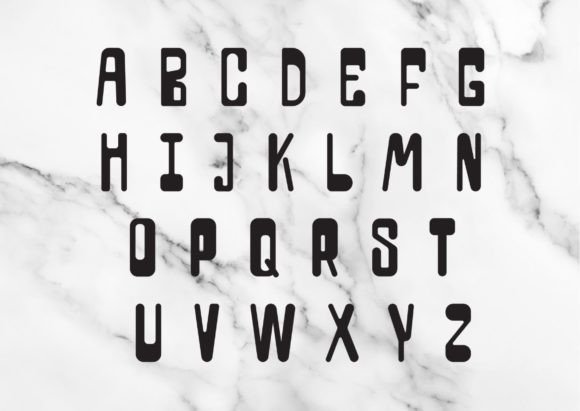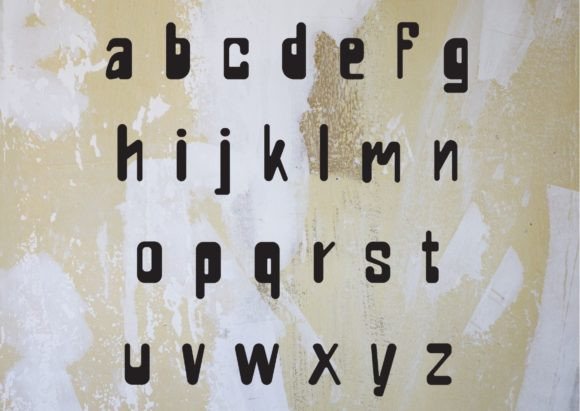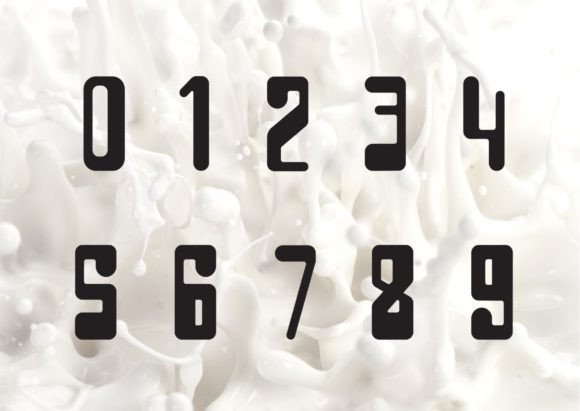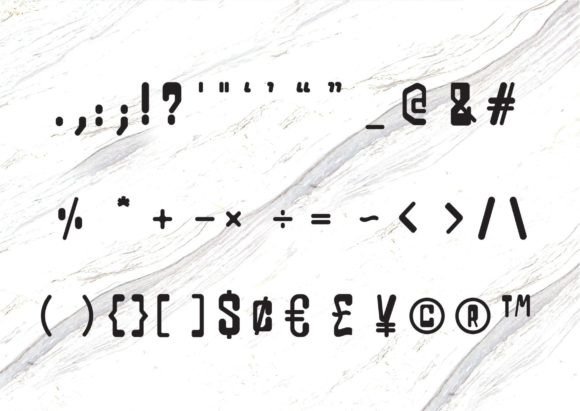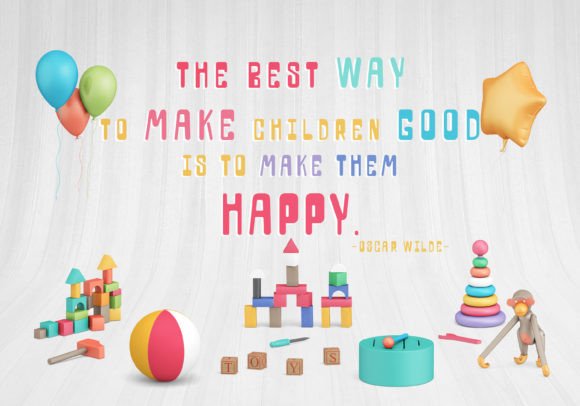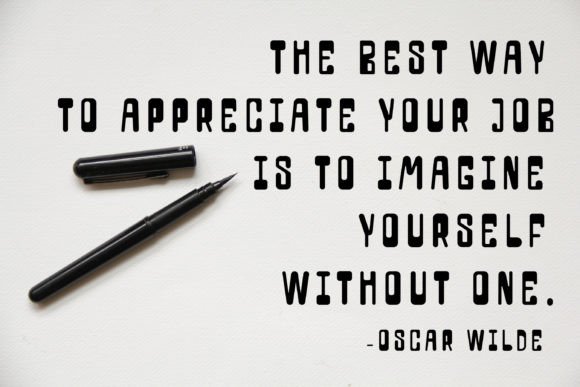
Unleash Your Creativity with Chimpli Font
Have you ever been stuck in a creative rut, staring at a blank page with no inspiration in sight? It’s a familiar feeling for many designers, but what if you had a secret weapon to break the cycle? Introducing Chimpli Font, a fun and playful display font that’s sure to spark some creativity.
This charming font is perfect for adding a touch of whimsy to your designs, from social media graphics to advertising campaigns. Its unique character and friendly vibe make it an instant favorite among designers. By incorporating Chimpli Font into your projects, you’ll be able to add a level of personality and flair that will set your work apart from the crowd.
Key Features of Chimpli Font
- Font Family: Chimpli is a sans-serif font family, suitable for various digital and print media applications.
- Size: Chimpli Font is available in 6 different font weights, ranging from Light to Bold, allowing for versatile design options.
- Unique Characteristics: Chimpli Font features a distinctive, modern design with rounded edges and clean lines, making it ideal for contemporary branding and design projects.
- Language Support: Chimpli Font supports a wide range of languages, including Latin, Cyrillic, and Greek scripts, making it a versatile choice for global design applications.
Chimpli Font Review
Overall, I think the Chimpli Font has some great qualities, but it’s not perfect.
- Unique and quirky design that adds a playful touch to any text.
- Variety of weights and styles to choose from, making it a versatile font for different projects.
- Works well in both digital and print media.
- Legibility is good, making it suitable for body text and headings.
- Lack of consistency in font spacing and kerning can be distracting.
- Some characters may not be as refined as others, which can affect the overall aesthetic.
- Not ideal for formal or professional projects due to its playful nature.
- May not be compatible with all operating systems or devices.
In conclusion, the Chimpli Font is a fun and creative choice for projects that require a lighthearted tone. However, its limitations should not be overlooked. It’s essential to consider the specific needs and goals of your project before choosing this font.
Chimpli Font Practical Application Guide
For best results, use Chimpli Font in bold or italic styles to add emphasis to your text. It’s also a good idea to pair Chimpli Font with a clean and simple font for body text. Chimpli Font is commonly used for creating social media graphics, posters, and flyers.
Alternatives to Chimpli Font
Playfair Display is a high-end, elegant serif font that’s perfect for luxury brands, high-end fashion, and other upscale designs. It’s ideal for titles and headings where you want to create a sense of sophistication and refinement.
Compared to Chimpli Font, Playfair Display has a more formal and luxurious feel, while Chimpli Font is more playful and modern.
Compared to Chimpli Font, Great Vibes is more fluid and expressive, while Chimpli Font is more geometric and modern.